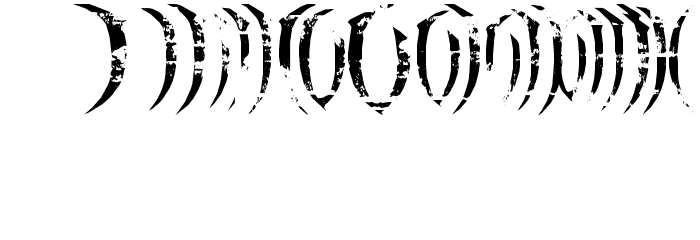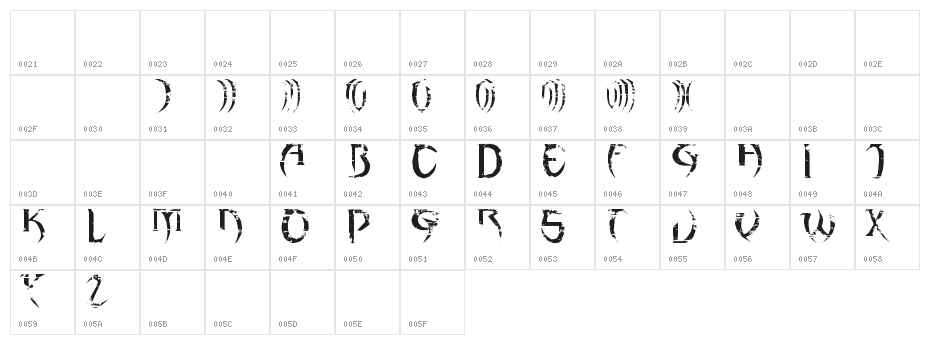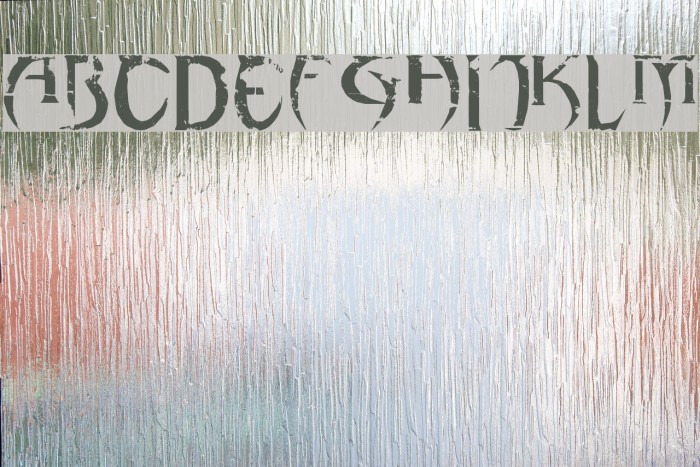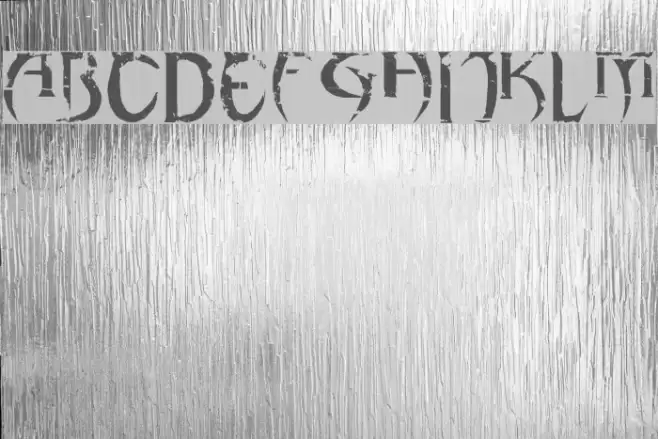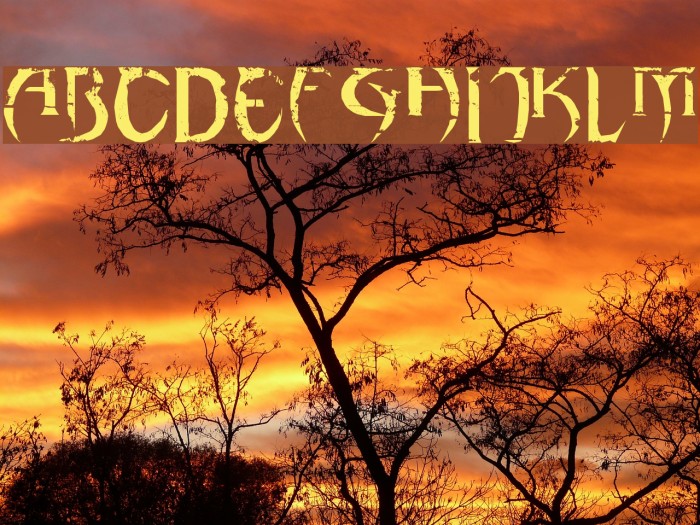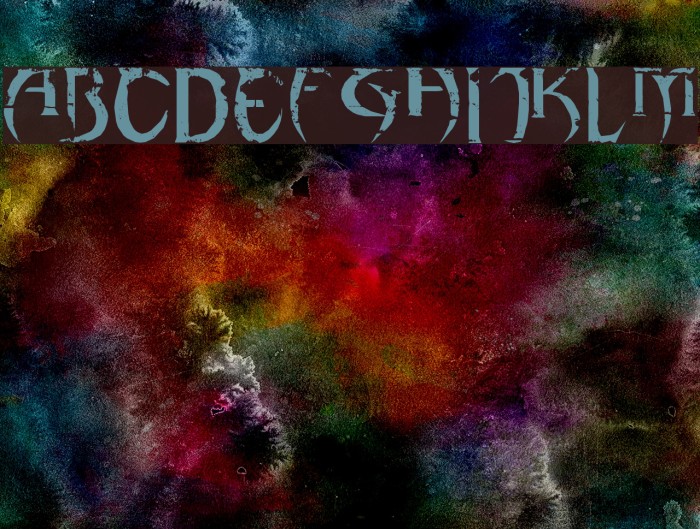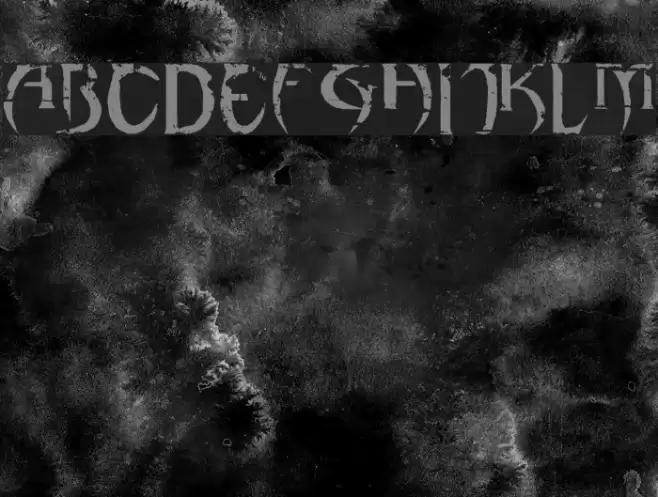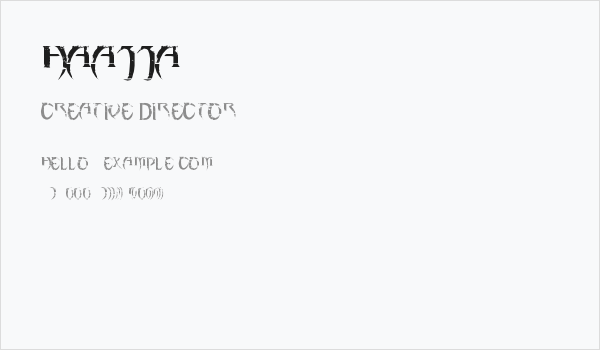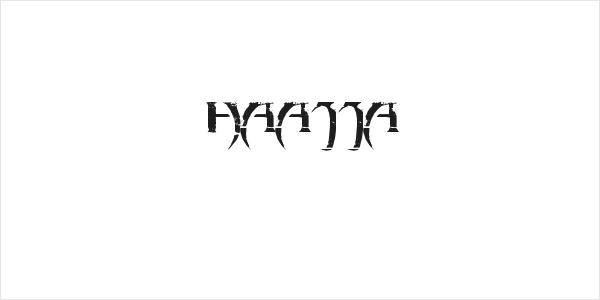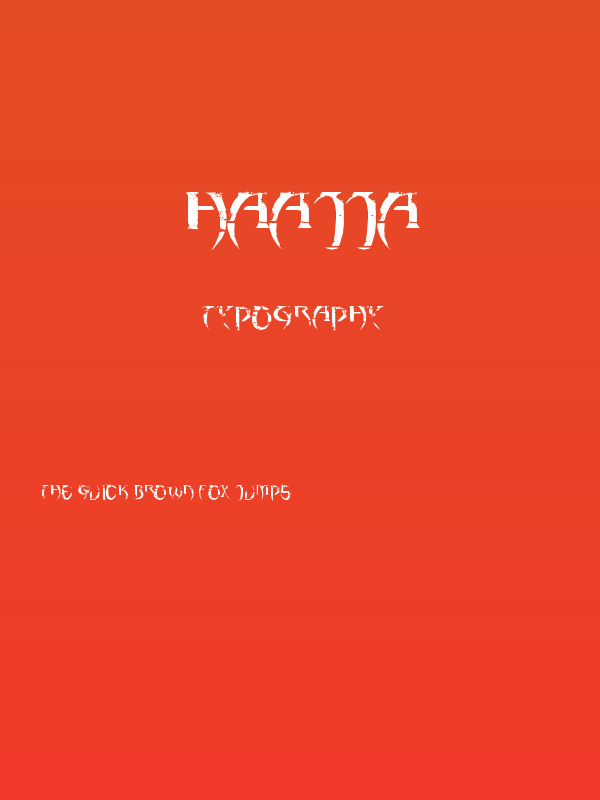
haAJJA Font
haAJJA Description
This font features a distressed, grunge style with sharp, angular edges and a bold presence. Each character appears as if it has been weathered or eroded, giving it a rugged and edgy appearance. The uppercase and lowercase letters maintain a consistent design, with unique cutouts and jagged lines that add to its raw aesthetic. The numerals and special characters follow the same theme, ensuring a cohesive look across all glyphs. This font is ideal for projects that require a bold statement or an alternative, rebellious vibe.
| Overall Style | Grunge, Edgy, Alternative |
| Proposed Projects | Album covers, posters, streetwear branding, skateboarding graphics, and alternative event flyers. |